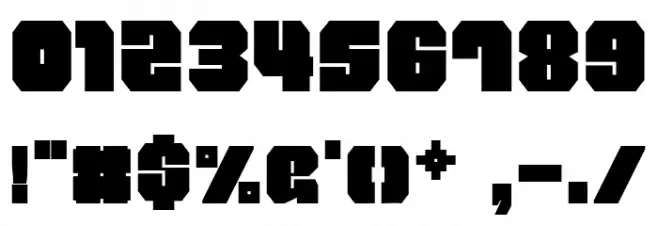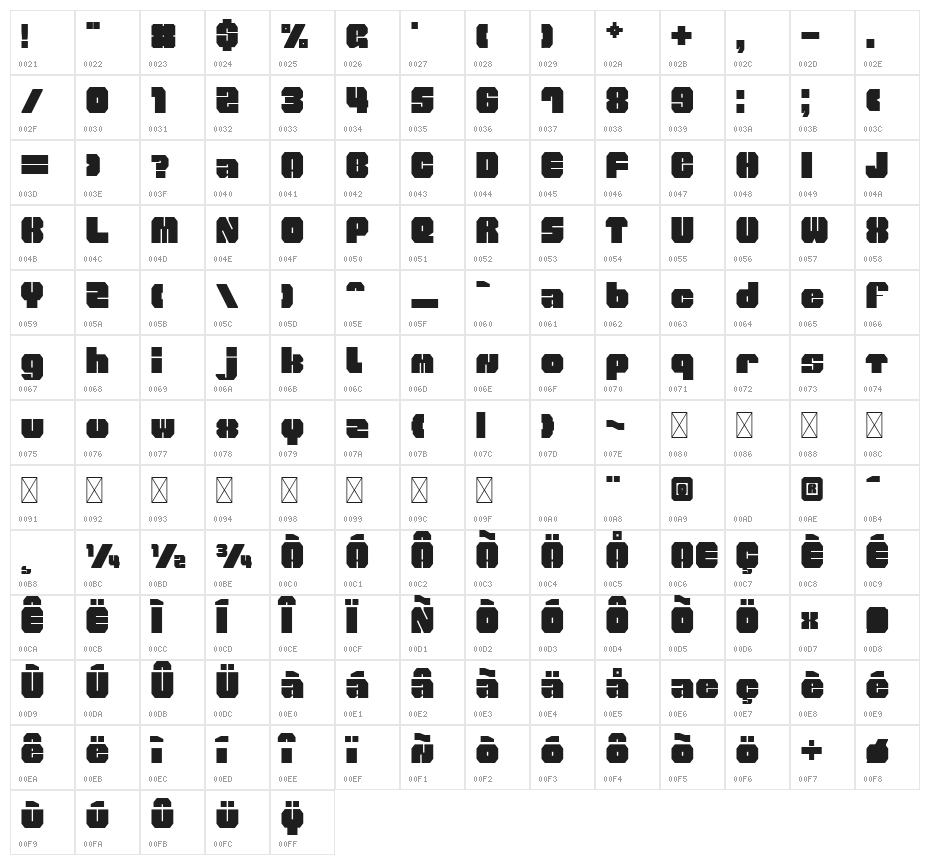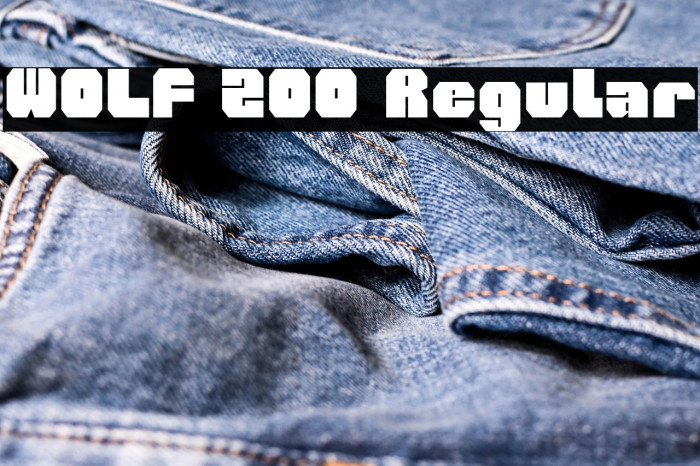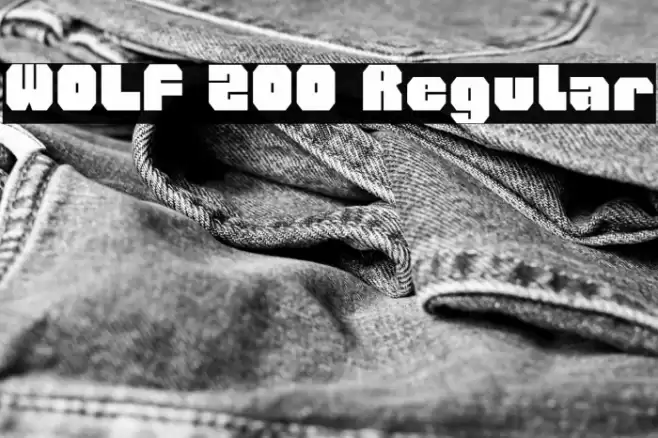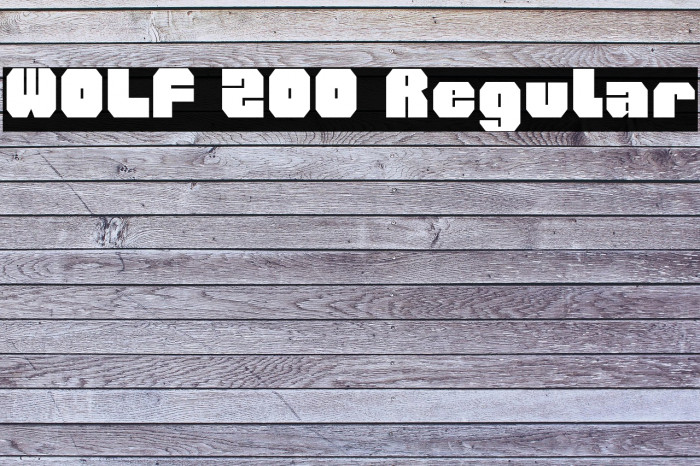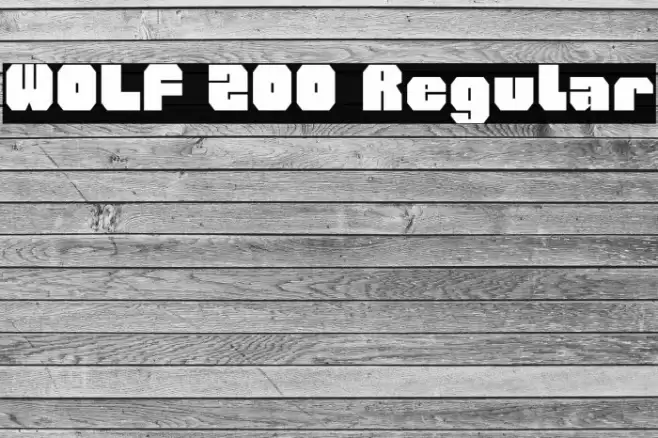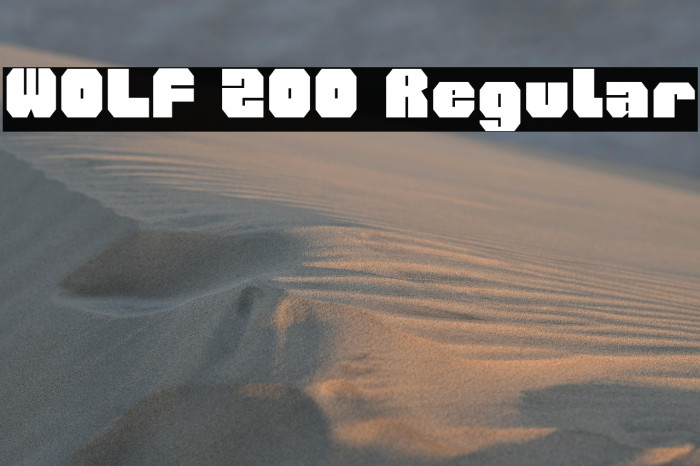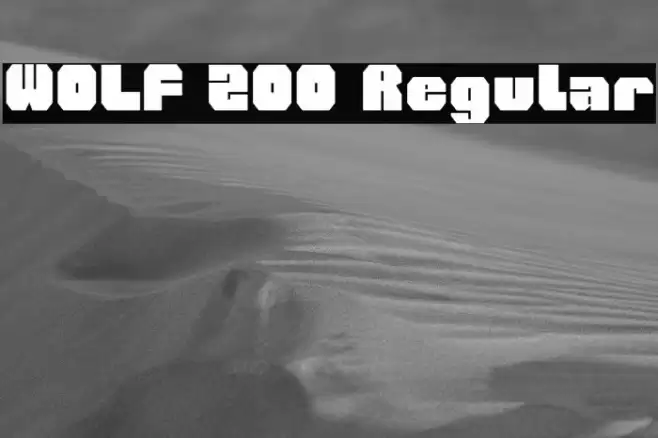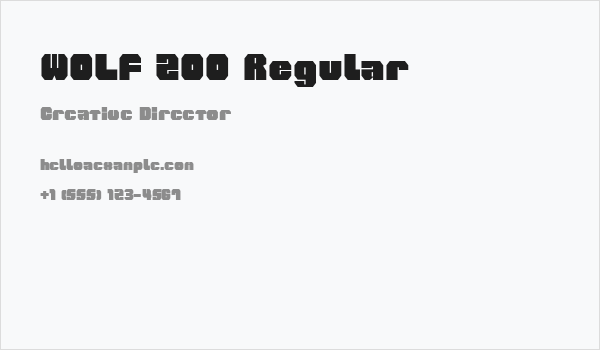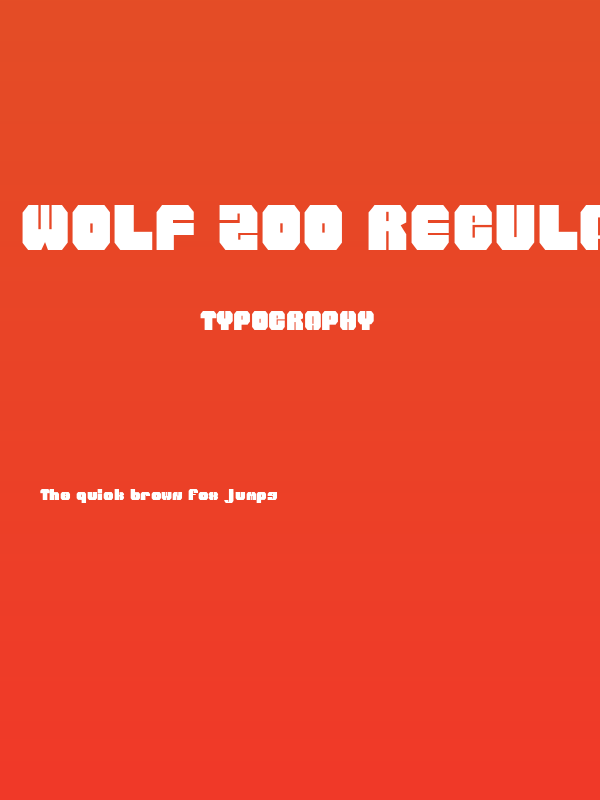
WOLF 200 Regular Font
WOLF 200 Regular Description
This font features a bold, geometric style with a strong, block-like appearance. The characters are constructed with sharp angles and straight lines, giving them a futuristic and industrial feel. The uppercase and lowercase letters maintain a consistent weight, contributing to a cohesive and uniform look. The numbers and special characters follow the same design principles, ensuring visual harmony across all elements. The font's heavy weight and solid structure make it stand out, ideal for designs that require a strong visual impact.
| Proposed Projects | Ideal for branding, posters, headlines, and any project needing a strong, impactful typeface. |